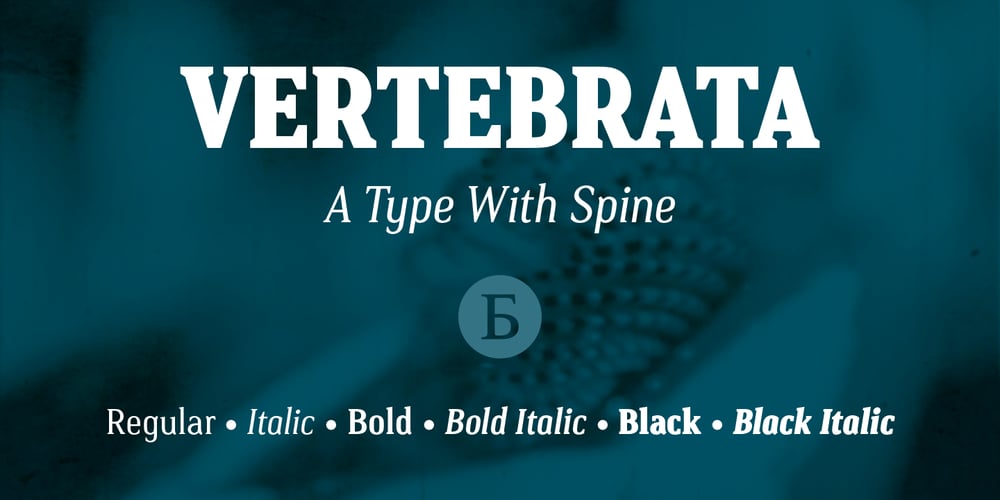
Vertebrata Font Family was designed by Fulvio Bisca and published by Fulvio Bisca. Vertebrata contains 6 styles and family package options. Vertebrata is a serif type family of six fonts, designed by Fulvio Bisca between 2011 and 2014. It embodies features from different ages of writing and history of typography: the solemnity of Capitalis Monumentalis in uppercase and small caps, rhythm of Textura in lowercase, sturdiness of 1800 Slab Serifs in the overall look and feel, and a contemporary modular approach to the construction process. In spite of the geometric genesis of the letterforms, special attention has been paid to optical corrections, in order to obtain a natural and legible design. With more than 500 glyphs per font and carefully designed small capitals, Vertebrata is a complete OpenType family, including multilingual and advanced typographic features. Regular, Italic, Bold and Bold Italic styles are intended for both text and display applications, whereas Black and Black Italic are more suitable for display size settings.